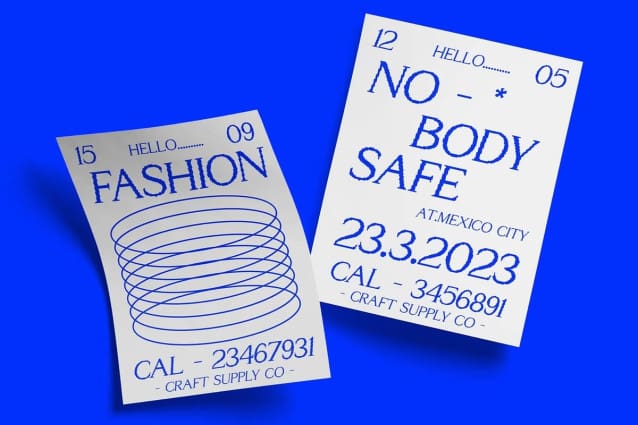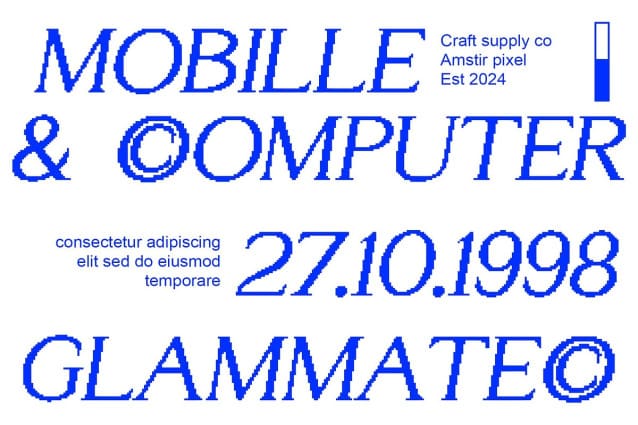
Amstir Pixel Font
Amstir Pixel Font : Pixelated Serif Charm, a distinctive serif style characterized by square-shaped elements, reminiscent of pixel art. This unique design adds a playful touch to any display project.
Perfect for Display Design Tailored for display purposes, This font excels in various design contexts, from website headers to digital advertising. Its pixelated aesthetic brings a nostalgic yet contemporary vibe to the forefront.
Captivating Pixel Effects The pixelated effect of This font lends it a captivating charm, making it ideal for catching the viewer’s attention. Each character is meticulously crafted to enhance the overall visual impact of the text.
Versatile Application Beyond its pixelated appearance, This font offers versatility in application. Whether used for branding, packaging, or print media, its unique serif design adds character and personality to any design project.
Nostalgic Pixel Art Reimagined This font reimagines the charm of pixel art in a contemporary serif font. With its square-shaped elements and pixelated effects, it adds a touch of nostalgia and playfulness to display designs, making it an excellent choice for those seeking to stand out in the digital landscape. Step into the world of This font and unleash your creativity with pixel-perfect typography.